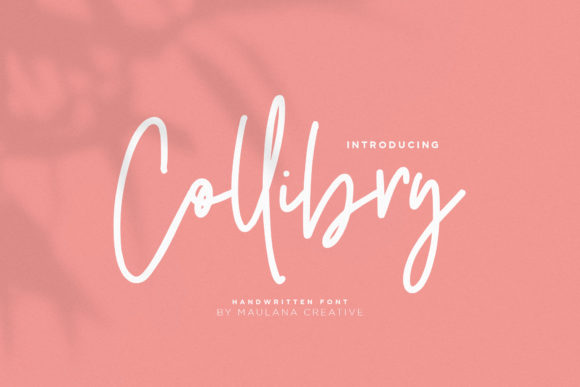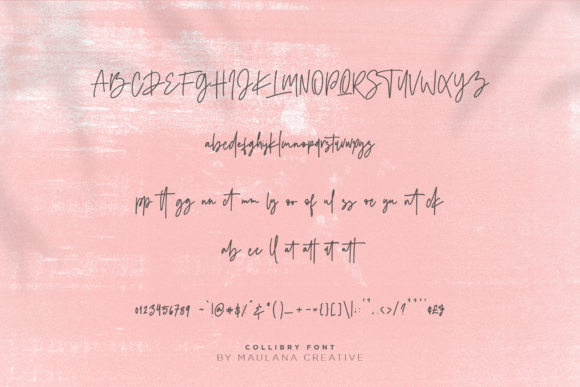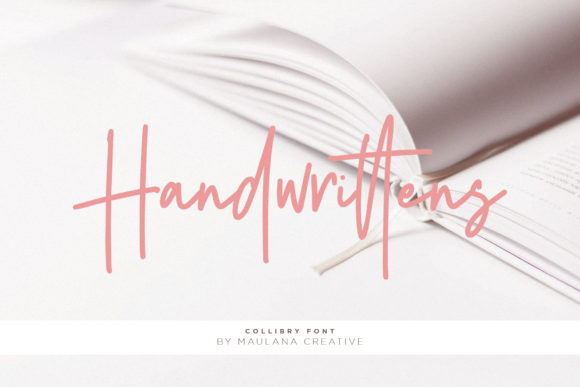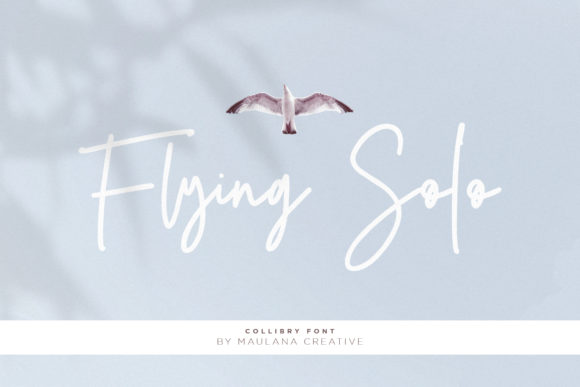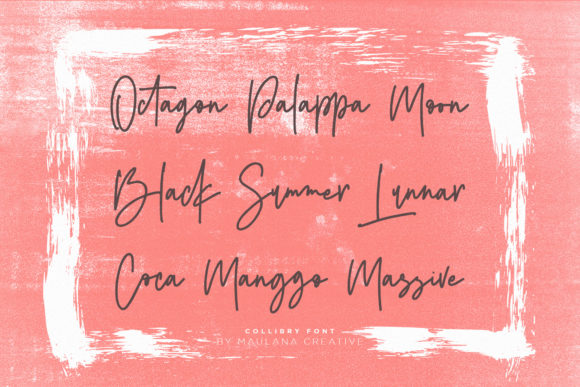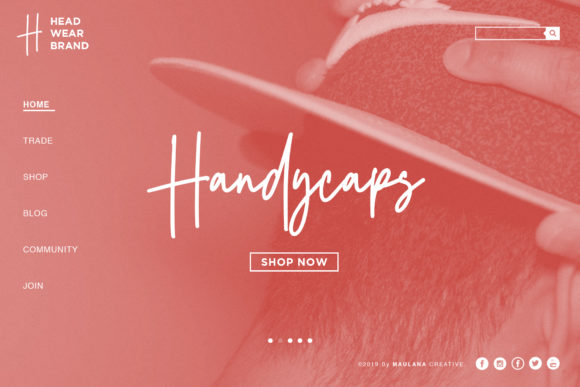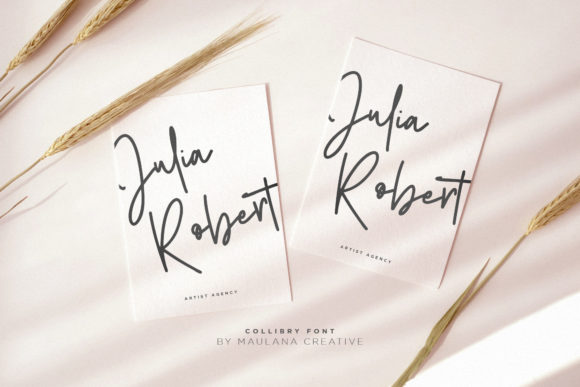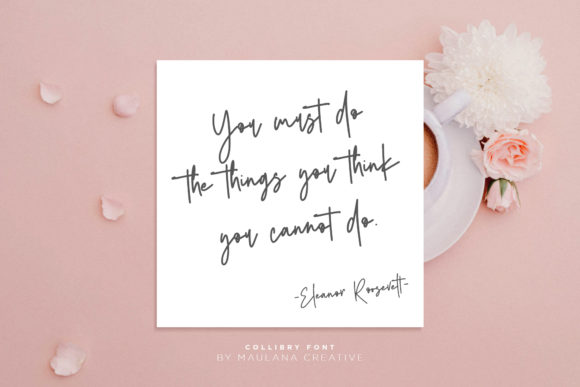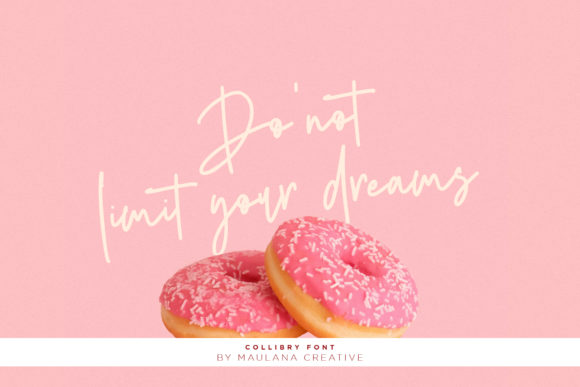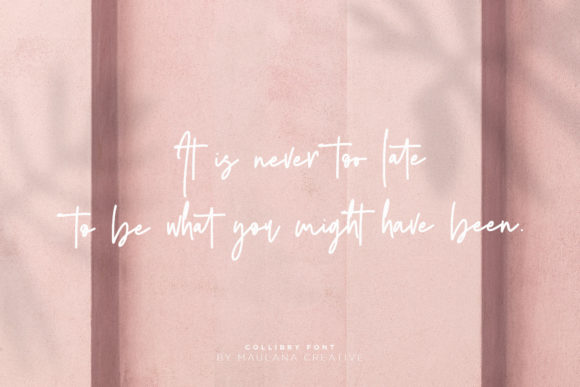
HomeScript FontsCollibry Font Script Fonts Collibry Font FacebookXPinterestWhatsApp Collibry Font Poster 2 Collibry Font Poster 3 Collibry Font Poster 4 Collibry Font Poster 5 Collibry Font Poster 6 Collibry Font Poster 7 Collibry Font Poster 8 Collibry Font Poster 9 Collibry Font Poster 10 About Collibry Font Collibry is the perfect font for giving your designs a handmade and organic feel. DOWNLOAD NOW People also explored Summer Butterfly Font Hontizema – Handwritten Font Megapolitan Jakarta Font Avila Font Belymon Script Font Rayne Susan Font Nimaly Font Clipart Font Saikon Font 354 0 TagsCollibry Font Previous articleRahayuX FontNext articleSomeday Script Font LEAVE A REPLY Cancel reply Comment: Please enter your comment! Name:* Please enter your name here Email:* You have entered an incorrect email address! Please enter your email address here Website: Save my name, email, and website in this browser for the next time I comment. Personal Use Free Alinda Personal Use Free Read more about this font Solaria Personal Use Free Read more about this font Hanberra Personal Use Free Read more about this font Lazy Sunday Personal Use Free Read more about this font BLOG 5 Fonts That Will Dominate Design Trends in 2026 5 Fonts for 2026 That Will Dominate Design Trends Typography plays a critical role in visual communication, and as we look ahead to 2026, it’s... Transform Your Website: Elevate Your Typography with 7 Best Web Font Generators The 10 Best Handwriting Fonts to Add Personality to Your Designs Free vs Paid Fonts: Why Investing in Premium Fonts Is Worth It